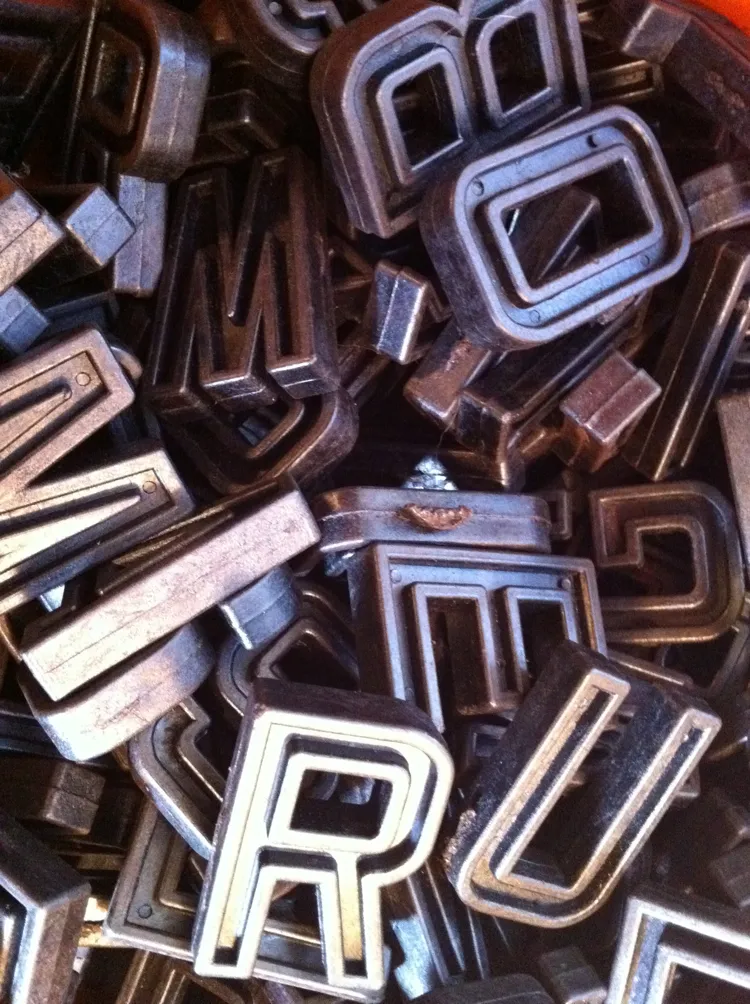
Seen in an antique store in Mount Vernon, Iowa, October 23, 2010.
While looking for some obscure typographical thing this morning, this ad in a 1955 ATF (American Type Founders) catalog caught my eye:
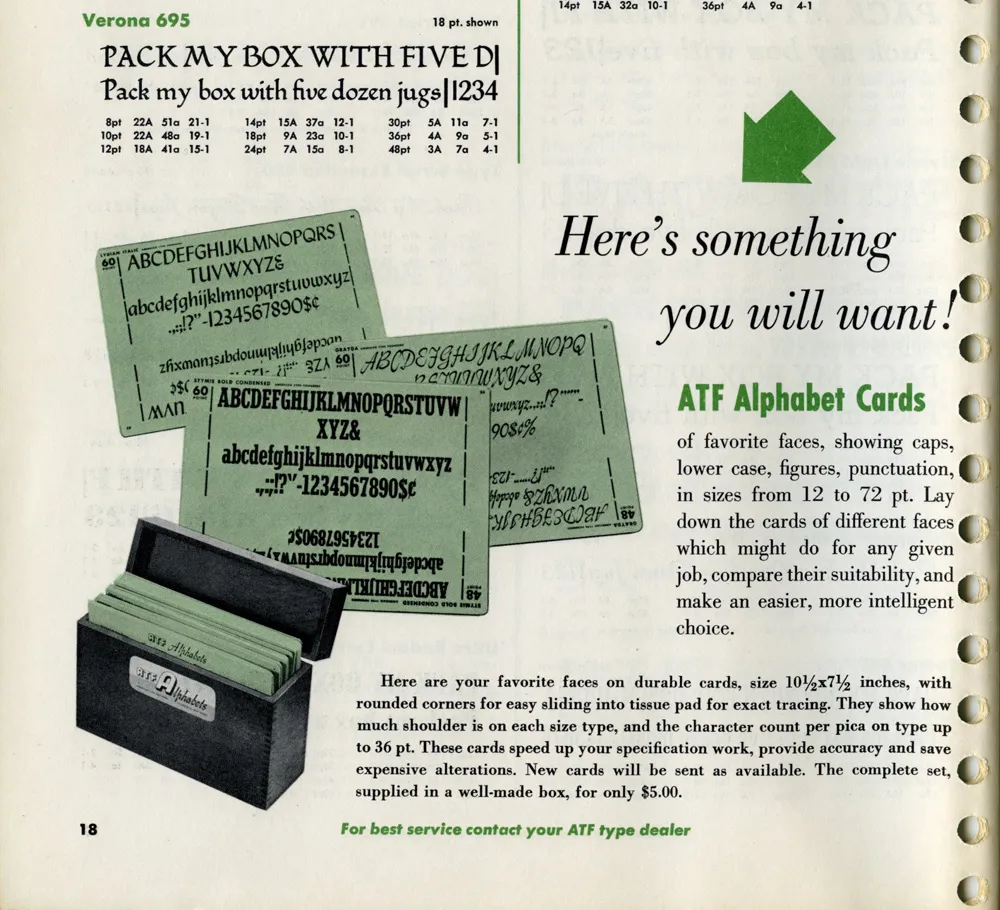
I have several boxes like the ones shown in the photo. I acquired them with a bunch of other stuff some years ago when the University of Minnesota Journalism School revamped its graphics lab. Here’s one of them:
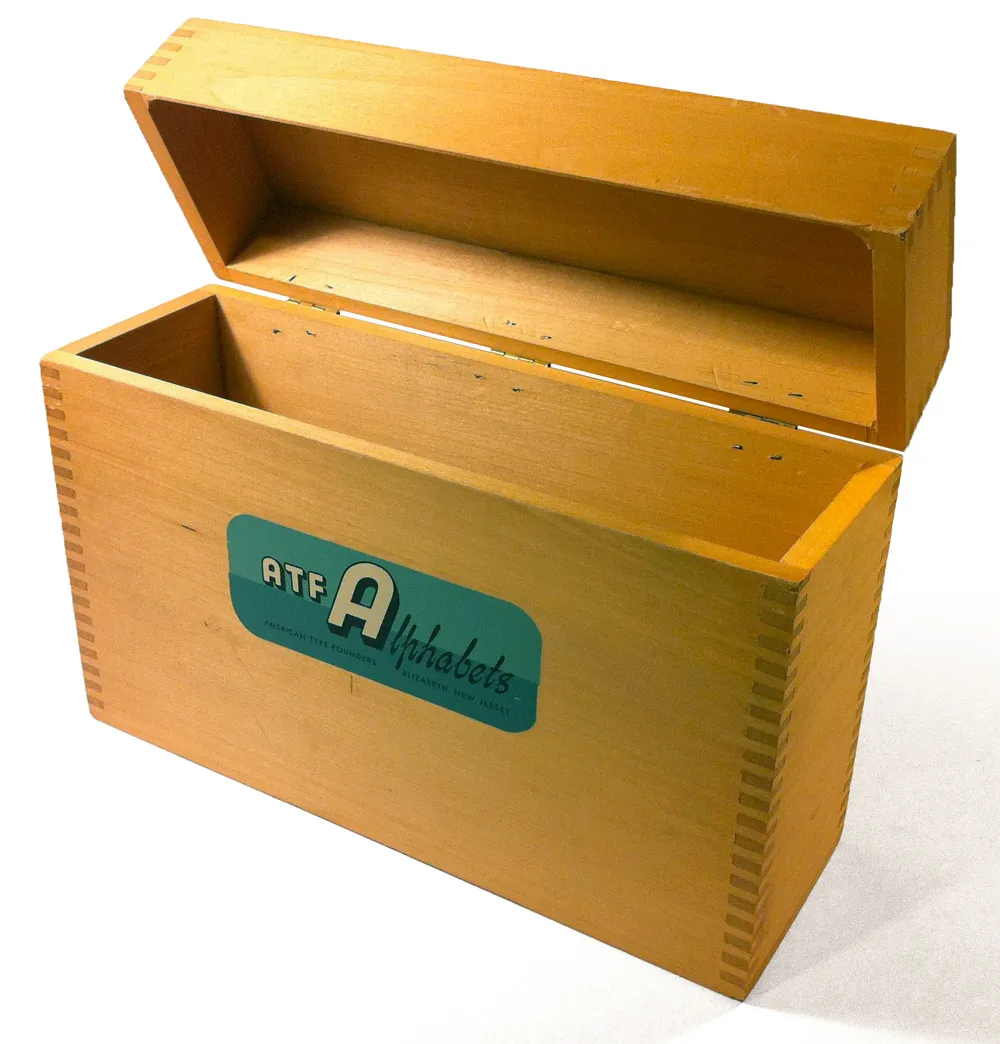
The silk-screened label is beautiful:
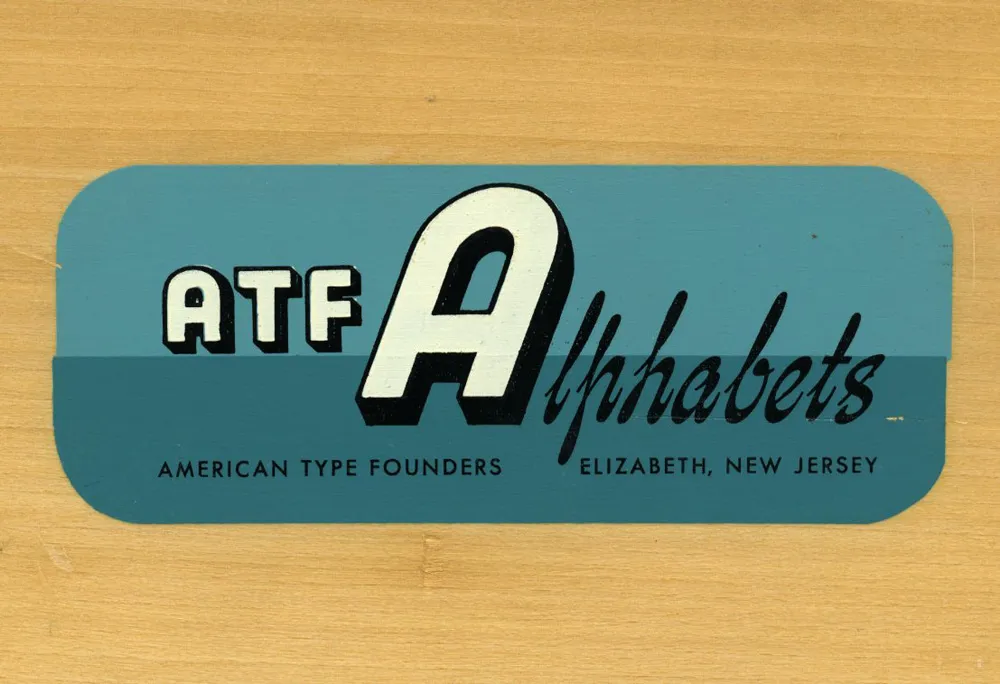
It’s too bad I don’t have any of the type sample cards they were designed to hold. “Here’s something you will want!” Still true, even in 2012.
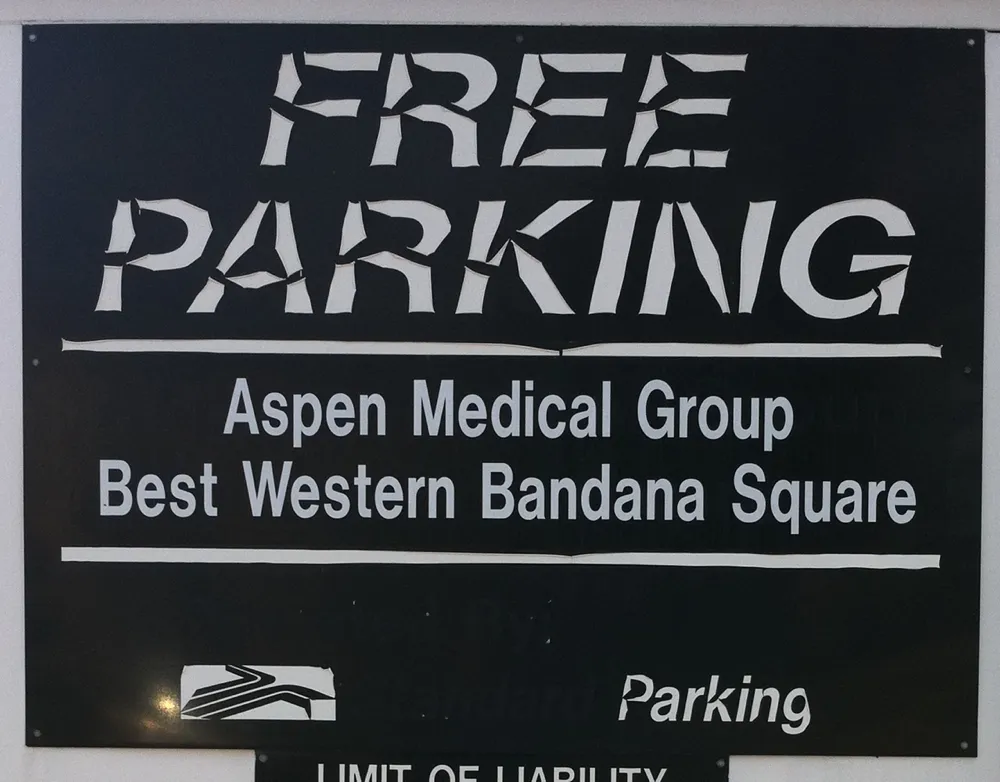
This is either really cool or really sad. I can’t make up my mind.
Seen in Saint Paul, Minnesota, November 3, 2010.
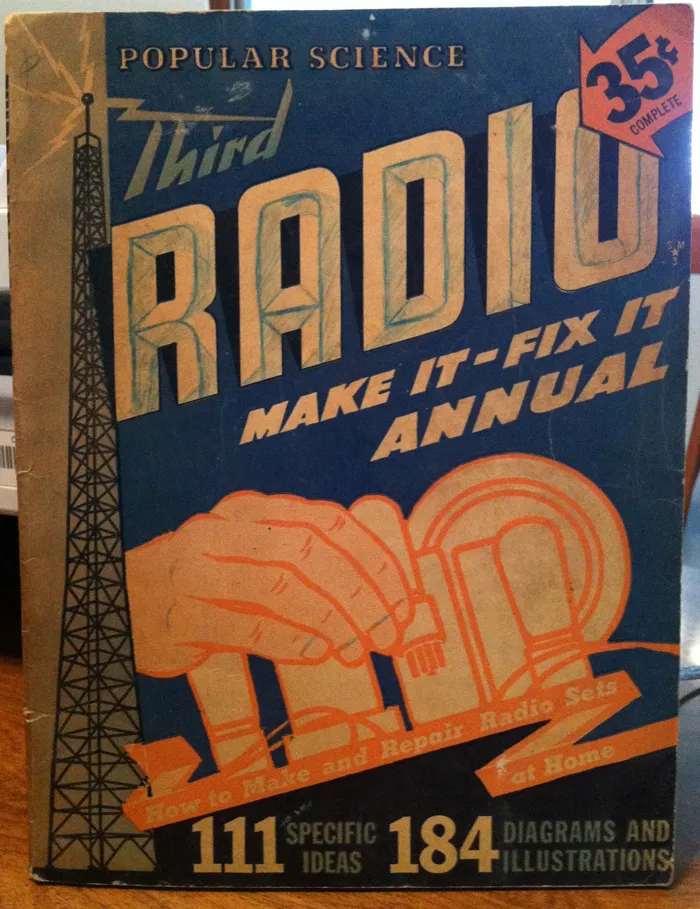
Photo taken on July 11, 2011 in Newark Valley, New York. Notice the custom 3-D effect added by the owner of this book.
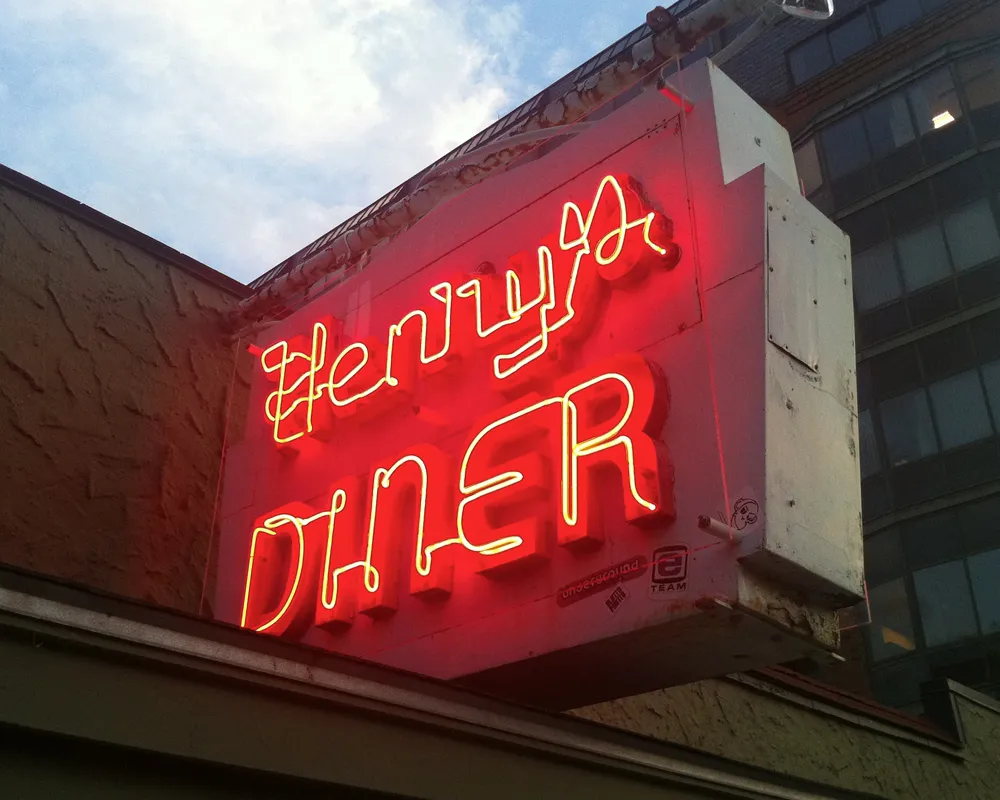
Photo taken on July 17, 2011 in Burlington, Vermont. This photo has been on the lock screen of my phone pretty much since I snapped it.